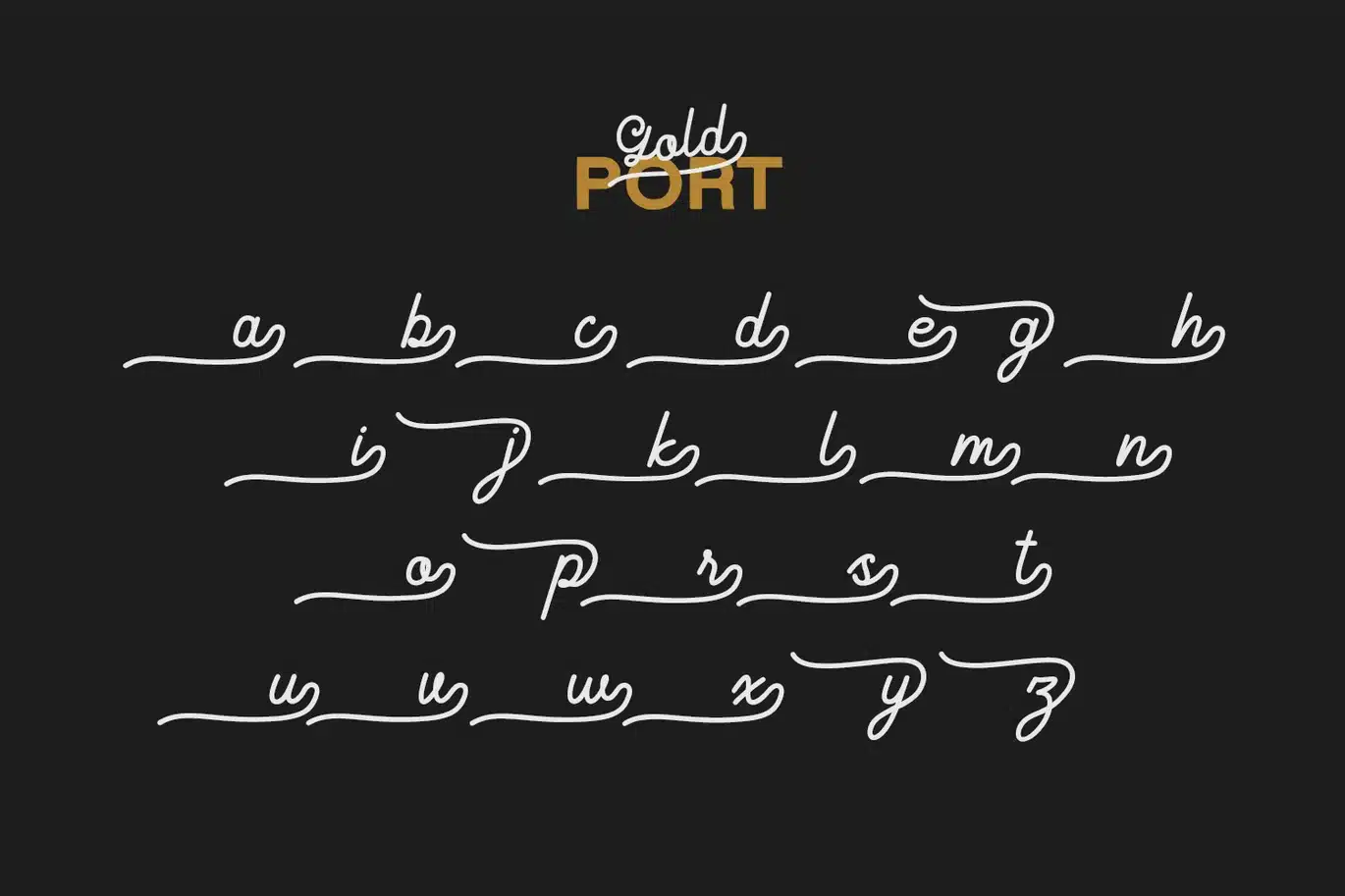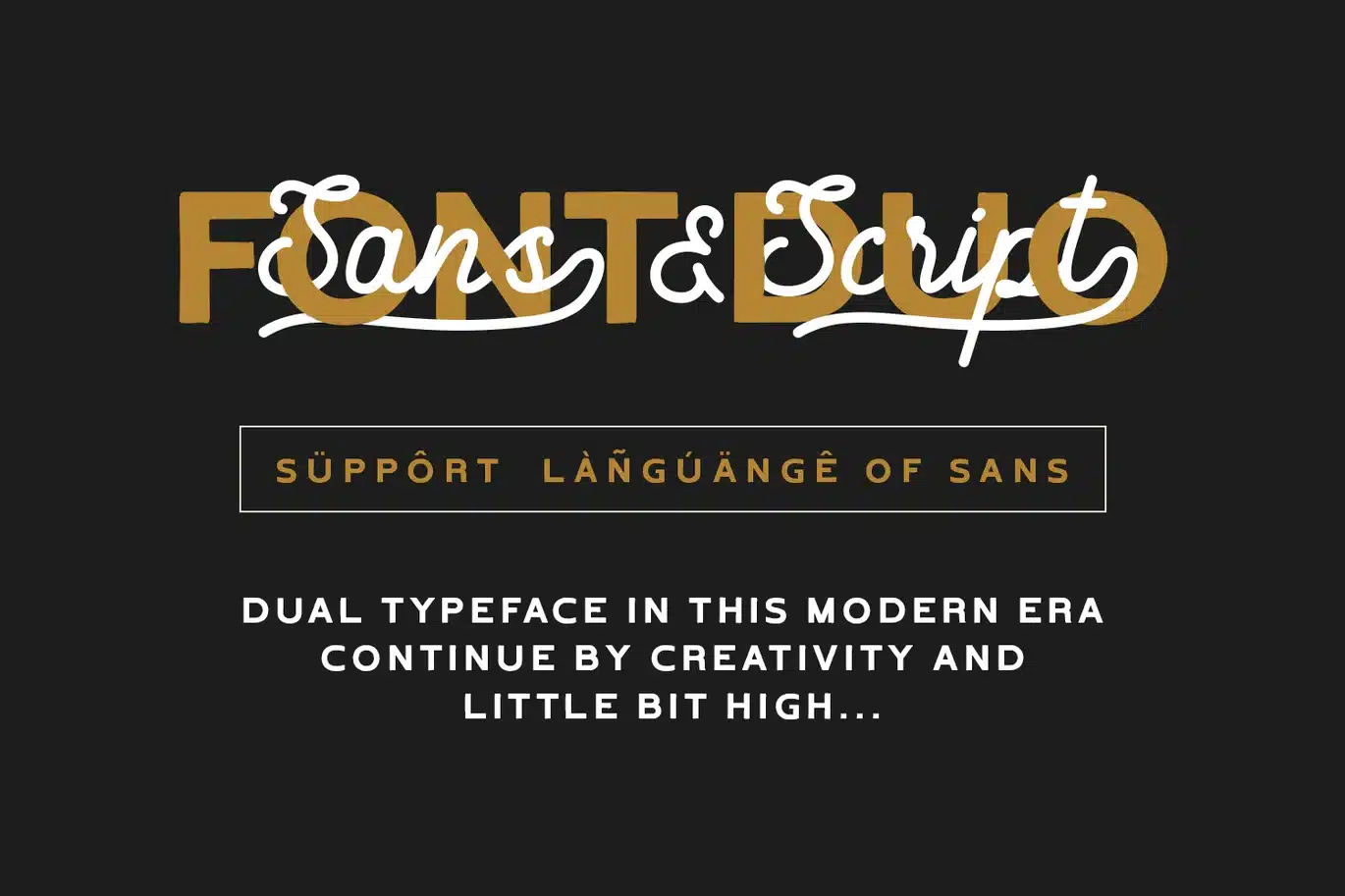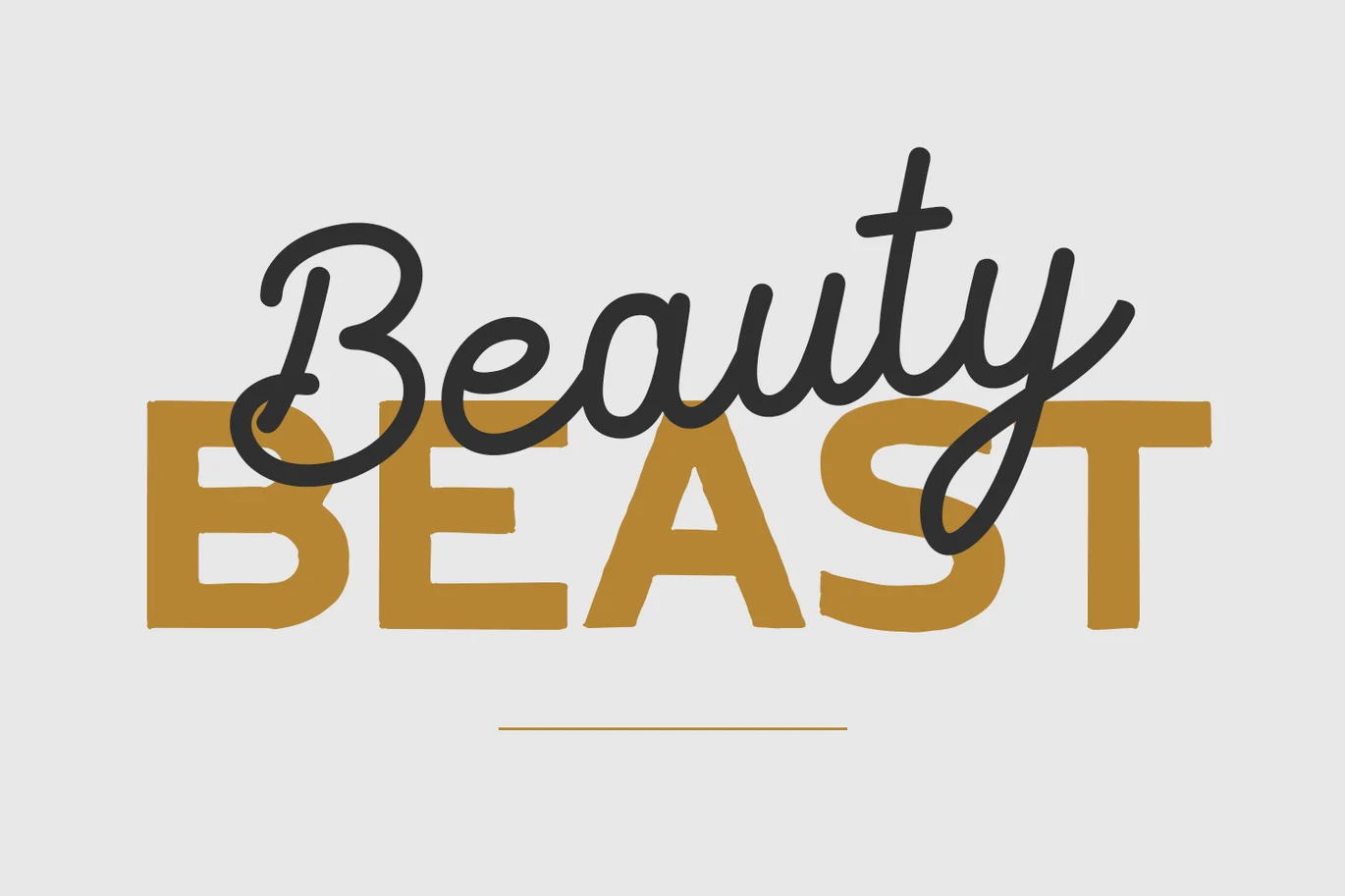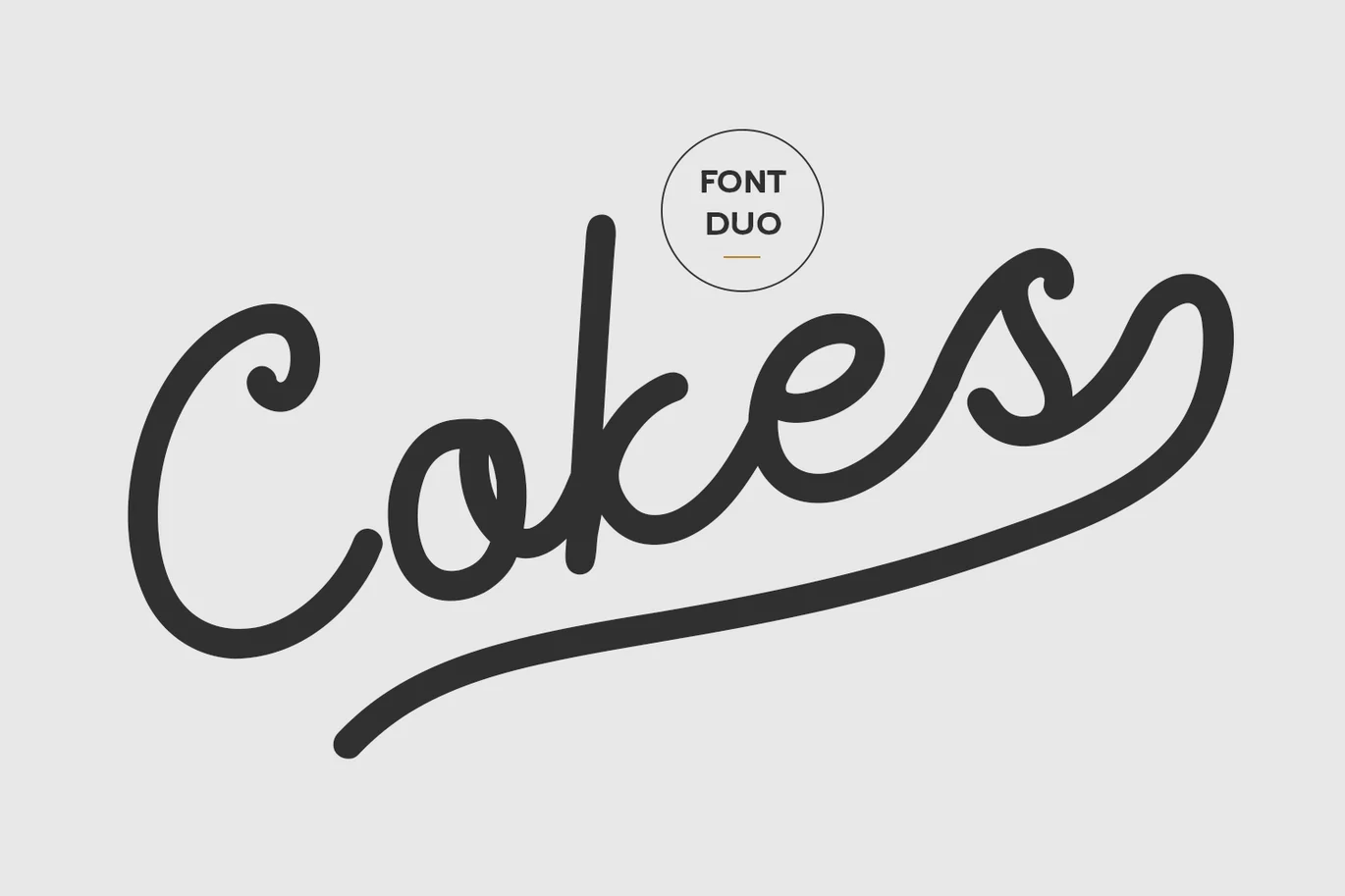
Gold Port – Font Duo
Give your designs an authentic handcrafted feel. "Gold Port - Font Duo" is perfectly suited to signature, stationery, logo, typography quotes, magazine or book cover, website header, clothing, branding, packaging design and more.